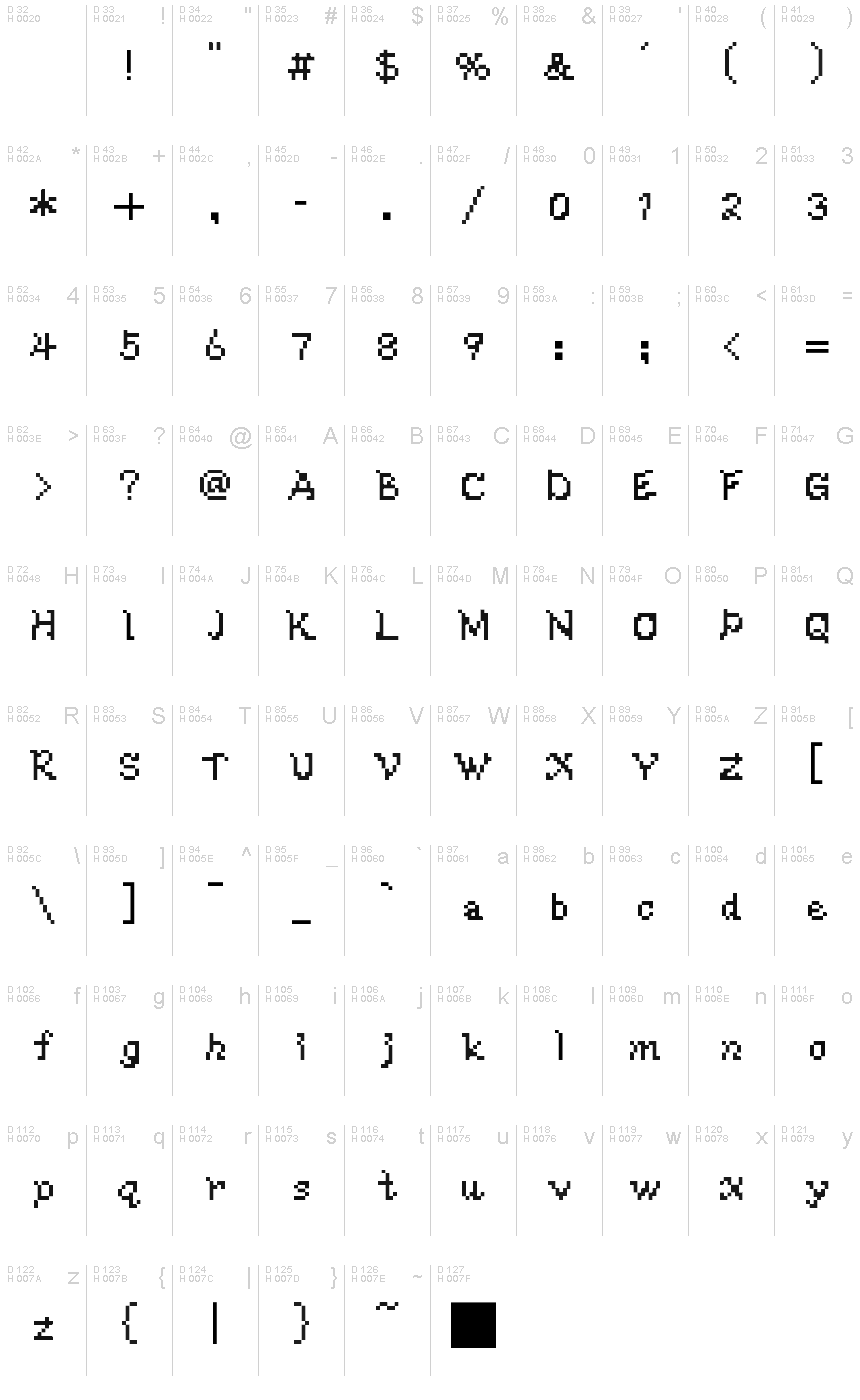
WWareTypeA
WWareTypeA - a WarioWare: D.I.Y. pixel font.
WWareTypeA is a playful, proportional sans-serif font recreation based on an original pixel font appearing in the game WarioWare: D.I.Y., which was developed by Intelligent Systems and Nintendo SPD, and released by Nintendo for the Nintendo DS in 2009.
The character set of this font was notably expanded with additional special characters, diacritic variants, unique glyphs and the like, each one of them designed to match the spirit and style of the original font design.
FEATURES
Proportional display sans-serif typeface
Countless additional special characters, diacritic variants, etc.
WWareTypeA by Caveras - based on an original pixel font used in the WarioWare D.I.Y. video game for the Nintendo DS (Intelligent Systems/Nintendo, 2009).